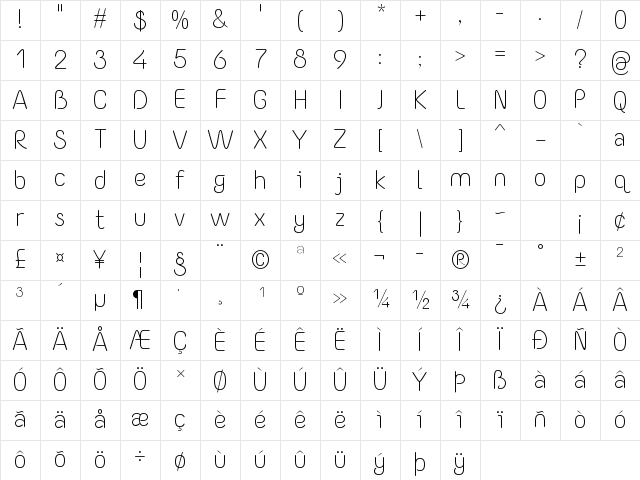
Yaahowu Light Regular
Designer: Situjuh Nazara
Design Context for Yaahowu Light
Yaahowu Light is a composed and adaptable typeface that performs quietly and consistently across a wide range of design contexts. Its slender proportions lend an understated elegance to any composition.